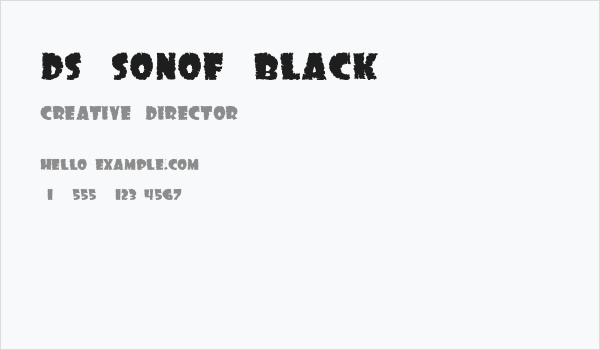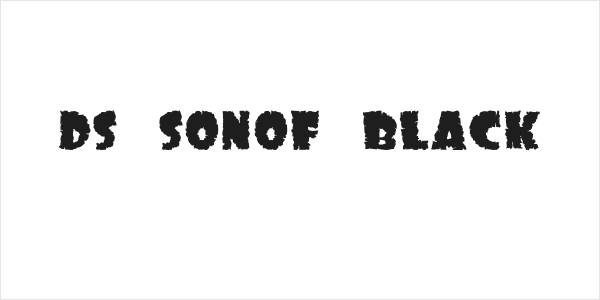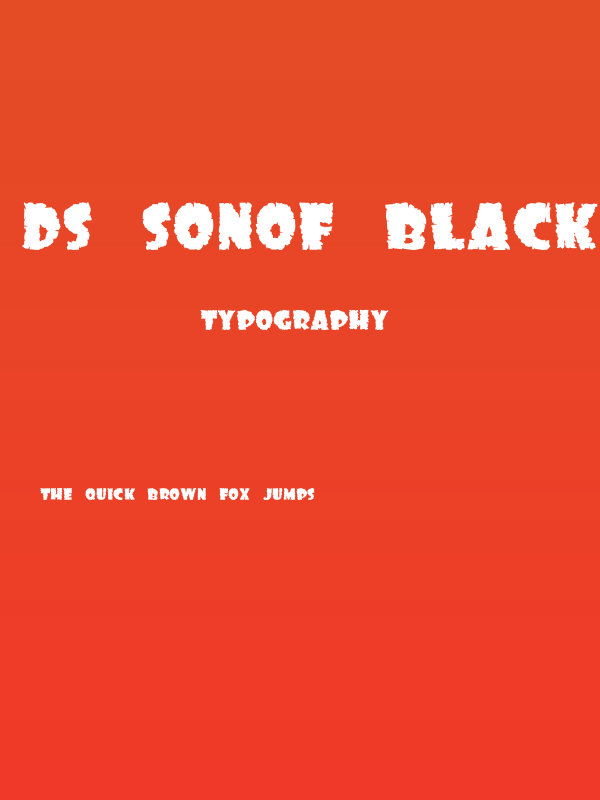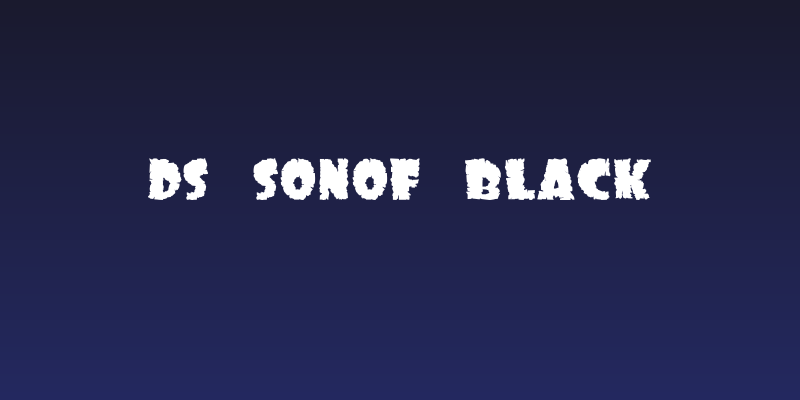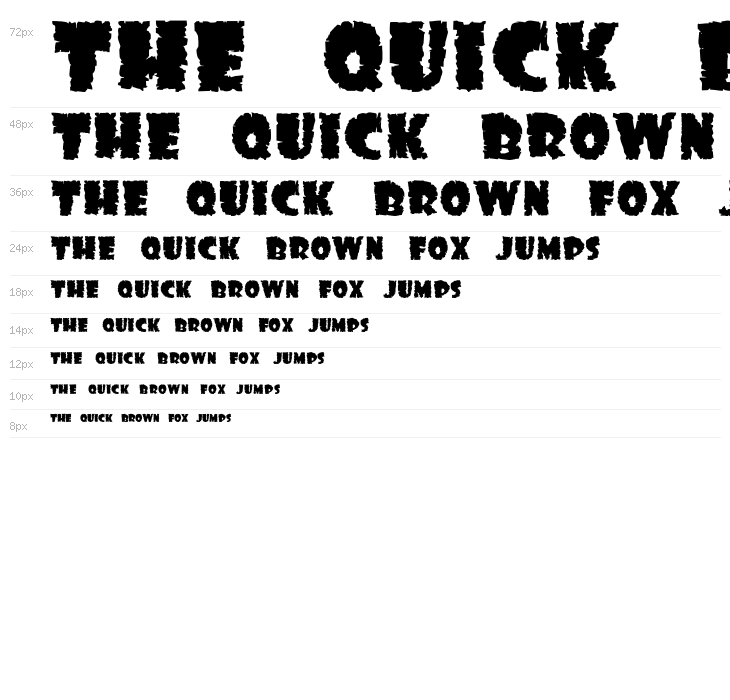
DS SonOf Black Font
DS SonOf Black Description
This font features a bold and rugged design with a distressed, grunge-like appearance. The characters are heavily textured, giving them an edgy and dynamic look. Each letter and number is uniquely crafted with irregular edges, creating a sense of movement and energy. The font's style is reminiscent of urban graffiti or a worn-out stencil, making it stand out with its bold presence. It is ideal for projects that require a strong visual impact, such as posters, album covers, or any creative work that seeks to convey a sense of rebellion or rawness.
| Overall Style | Grunge, Urban, Edgy |
| Proposed Projects | Ideal for posters, album covers, street art designs, and edgy branding projects. |